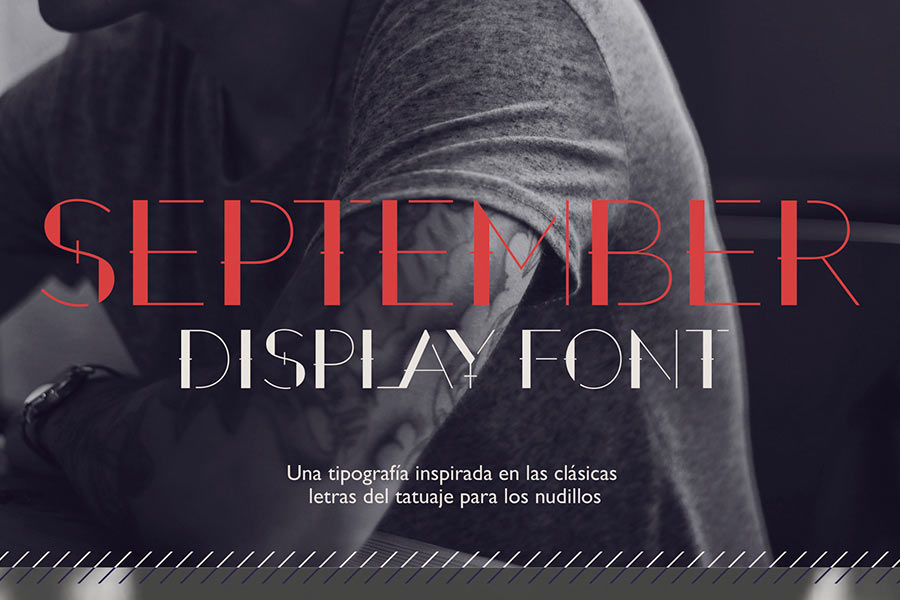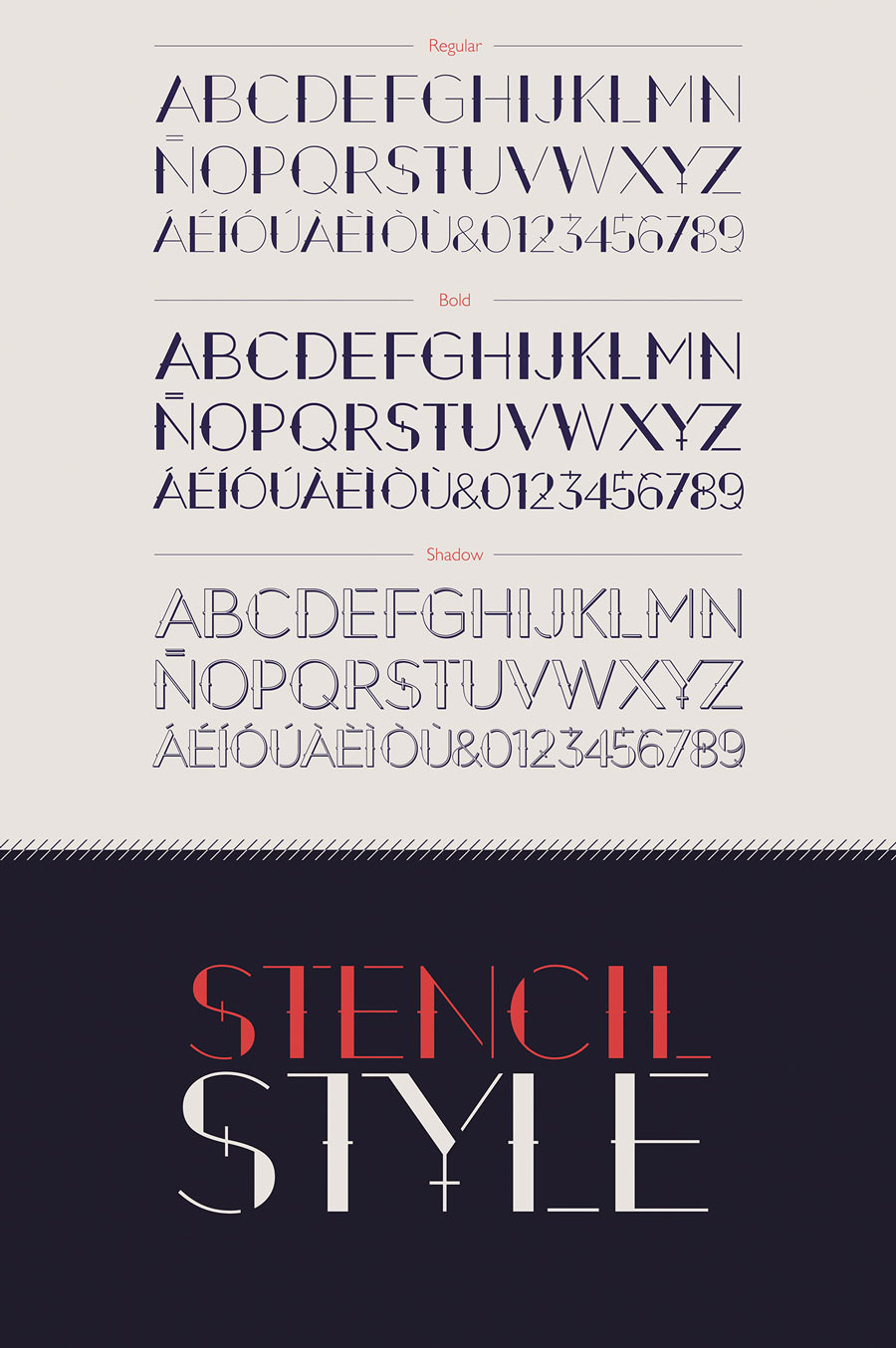
September is a free font that the design was based on old school knuckles tattoos. It has the Bodoni-style feature with added lines and also having the stencil-like characteristics to it. September comes with 3 styles and you can download it for free, but you can also pay the designer with any price.
- Styles: 3 (Regular, Bold and Shadow)